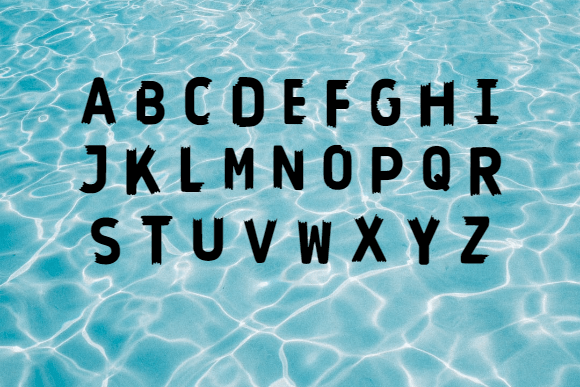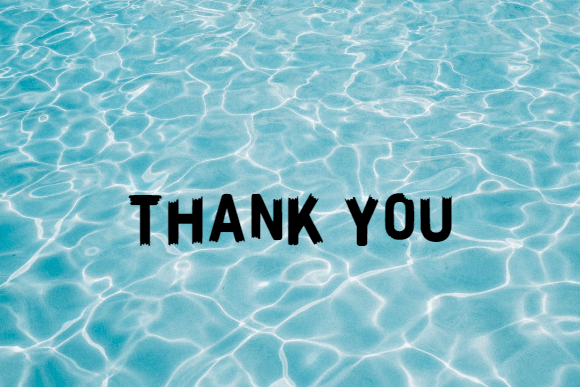
Introduction to Presentation Font
Get ready to elevate your design work with the latest and greatest display font.
Presentation features an attractive and unique style that will make any project stand out Its amazing writing technique and eye-catching design will grab the attention of your audience and make a lasting impression.
Key Features of Presentation Font
Why Choose Presentation Font?
Presentation Font offers exceptional quality and versatility, making it a valuable addition to your design toolkit. Whether you’re creating for personal projects or commercial use, Presentation Font delivers professional results.